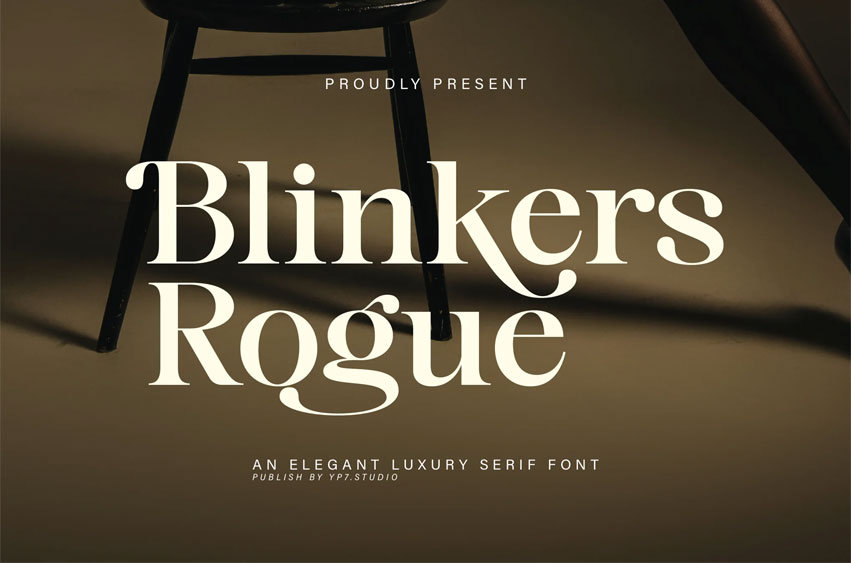
Blinkers Rogue Font, Elegant Luxury Serif Font. It is suitable for flyers, posters, novels, letterheads, or any design requirements you want to be awesome.
Blinkers Rogue